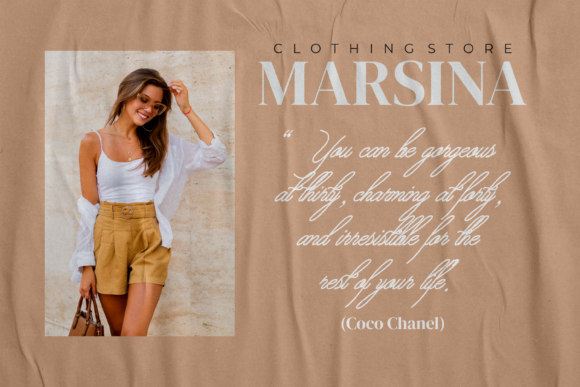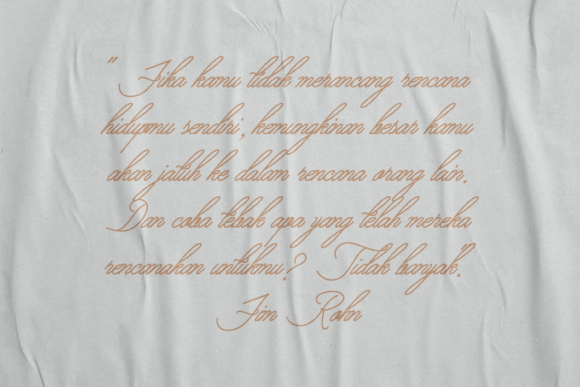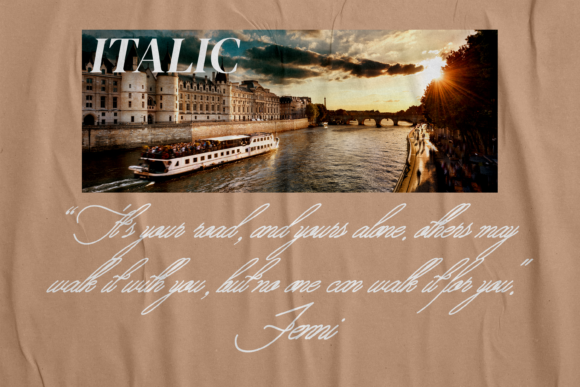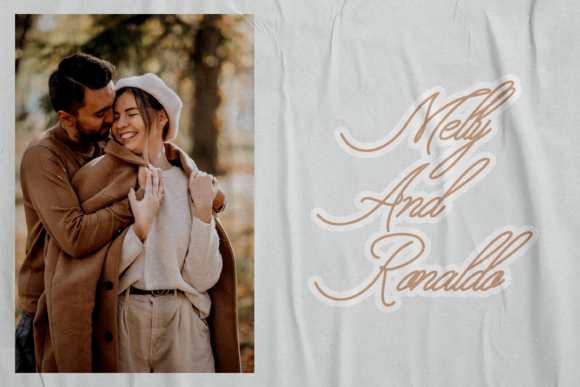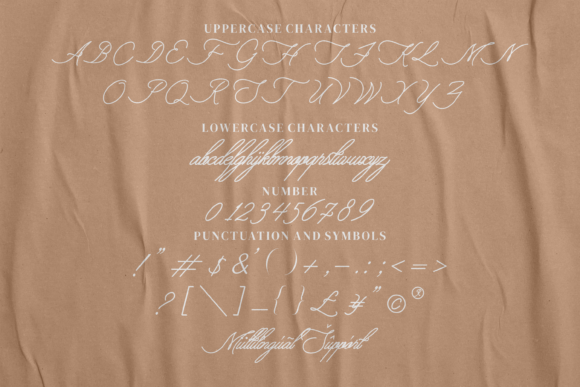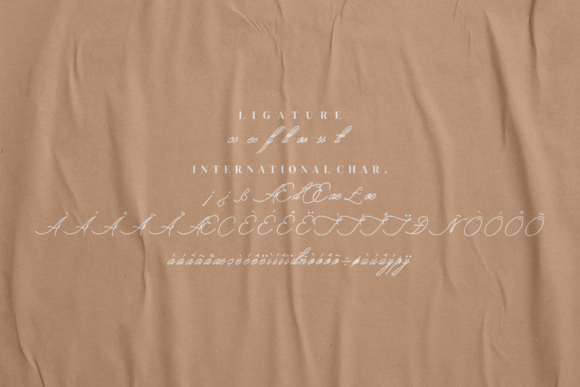
Introducing Aliantyara Signature Font: Elevate Your Designs with Vintage Elegance
In the world of typography, a font can make or break a design. For designers and crafters seeking to add a touch of sophistication and vintage charm to their projects, Aliantyara Signature Font is an excellent choice. This beautiful, well-balanced script font is designed to bring a sense of elegance and refinement to fashion branding, editorial designs, and more.
Characteristics of Aliantyara Signature Font
Aliantyara Signature Font is defined by its smooth curves and classic script style, reminiscent of traditional calligraphy. Its vintage aesthetic makes it perfect for designers looking to evoke a sense of nostalgia and luxury in their work. The font’s balanced design ensures that it remains legible and visually appealing, even at smaller sizes.
Key Features of Aliantyara Signature Font
- Beautiful and Well-Balanced Design: The font’s design is carefully crafted to ensure that every letter and character is aesthetically pleasing and harmoniously integrated with the others.
- Vintage Styled Script: Aliantyara Signature Font boasts a classic script style that adds a touch of elegance and sophistication to any design.
- Smooth Curves: The font’s smooth curves contribute to its luxurious feel, making it ideal for high-end fashion branding and editorial designs.
- Perfect for Fashion Branding: The font’s stylish and sophisticated design makes it an excellent choice for fashion brands looking to establish a luxurious identity.
- Great for Editorial Designs: Whether you’re working on a magazine, blog, or any other editorial project, Aliantyara Signature Font can add a touch of class and refinement.
Why Choose Aliantyara Signature Font?
For designers and crafters, finding the right font can be a daunting task. With Aliantyara Signature Font, you can confidently add a touch of vintage elegance to your projects. Here are a few reasons why Aliantyara Signature Font stands out:
- Versatility: This font can be used across various design projects, from fashion branding to editorial designs, and even personal crafts.
- Legibility: Despite its ornate style, Aliantyara Signature Font remains highly legible, ensuring that your message is conveyed clearly.
- Timeless Appeal: The font’s vintage style ensures that it will remain relevant and stylish for years to come, avoiding the fleeting nature of trendier fonts.
How to Use Aliantyara Signature Font in Your Projects
Integrating Aliantyara Signature Font into your design projects is straightforward. Here are a few tips to get you started:
- Pair it with Complementary Fonts: For maximum effect, pair Aliantyara Signature Font with simpler, sans-serif fonts to create a balanced and visually appealing design.
- Use it for Headings and Titles: The font’s elegant style makes it perfect for headings and titles, where you want to make a strong impression.
- Experiment with Colors and Textures: Don’t be afraid to experiment with different colors and textures to find the perfect combination that enhances the font’s vintage charm.
Aliantyara Signature Font is a versatile, elegant, and timeless script font that can elevate your designs to new heights. Its vintage charm, smooth curves, and well-balanced design make it an excellent choice for fashion branding, editorial designs, and personal crafts. By incorporating Aliantyara Signature Font into your projects, you can add a touch of sophistication and luxury that will leave a lasting impression on your audience.